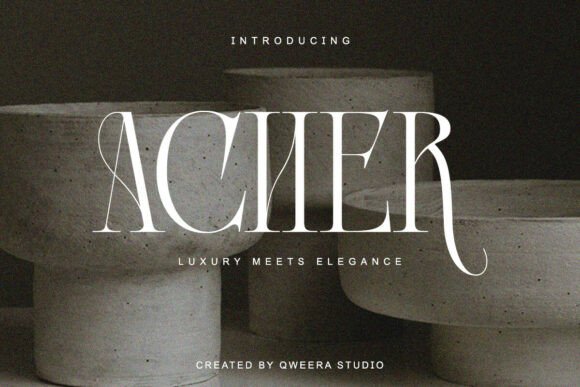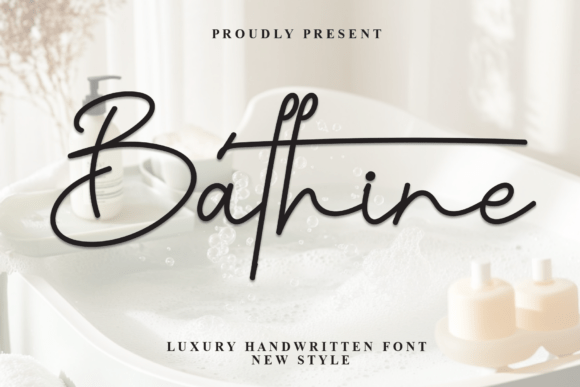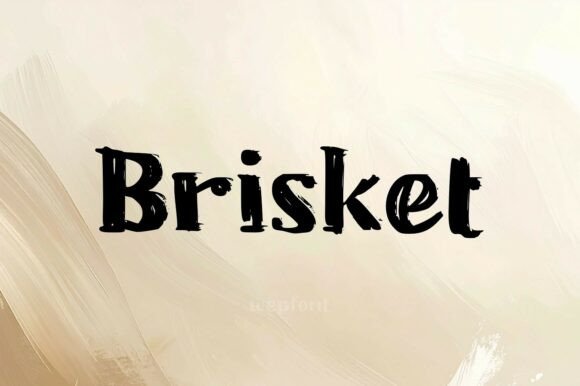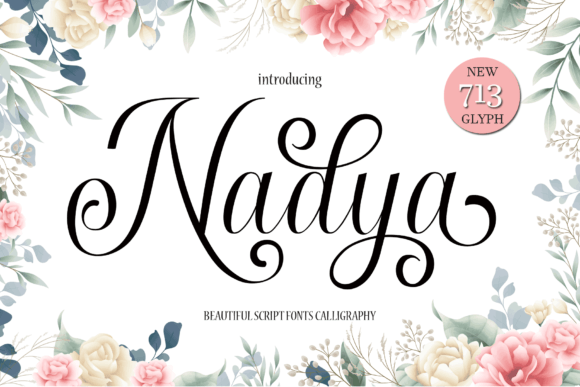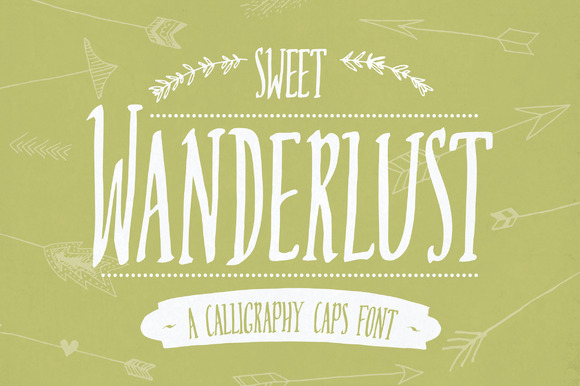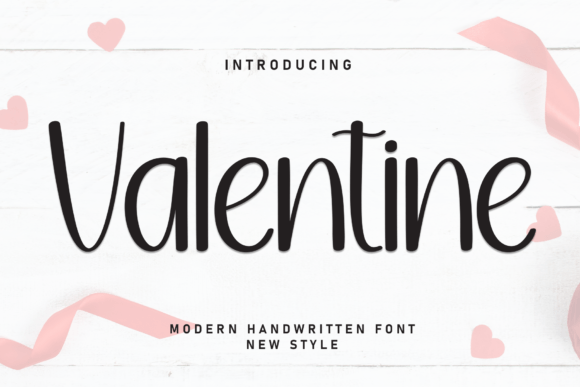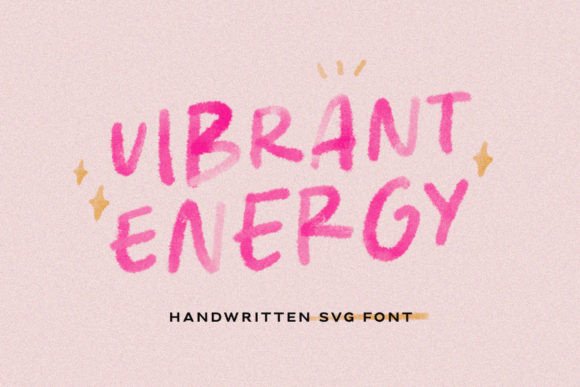
Word design
10 Creative fonts that will transform your word design
They say a brand never gets a second chance to make a first impression. But what if that first impression is built on a weak typeface? In my years as a designer, I’ve learned that Word design is the silent ambassador of your brand identity. It’s not just about readability; it’s about resonance.
Today, I want to share my passion for Creative Fonts and how stepping away from safe, default choices can inject raw personality into your work. We’ll explore how the right typography doesn’t just display a message – it amplifies it, turning simple text into a visual experience that demands attention.
Let’s dive into the fonts that will transform your next project.
Vibrant Energy Font
One font that perfectly captures this handmade, expressive spirit is Vibrant Energy. This is not your standard typing experience – it is an SVG color font that brings illustration directly into your letterforms. What I love most about Vibrant Energy Font is its organic randomness. By mixing the specially designed uppercase and lowercase variations within a single word, you instantly achieve that sought-after, natural handcrafted look. It tricks the eye into thinking each letter was placed with intention, not generated by a machine.
Beyond the letters themselves, this Word design tool includes a delightful set of matching icons that elevate your project from simple text to a complete visual story. Whether you are designing for social media quotes, greeting cards, or posters, this font adds a layer of playful depth.
Neexan Font
Sometimes your project demands something sharp, technical, and unapologetically modern. When the brief calls for that futuristic edge, Neexan Typeface is my go-to weapon of choice. Designed by Denustudios, this display font lives at the intersection of geometry and attitude – every letterform feels precision-crafted for maximum impact without sacrificing readability.
What excites me about Neexan is its versatility in word design. The streamlined shapes and techno-inspired rhythm make logos and headers snap with confidence, while the built-in alternates and ligatures give you room to craft something truly unique. Whether I am working on album art, packaging, or UI headers, this font delivers that forward-looking aesthetic effortlessly. It is sharp enough for short titles but flexible enough for entire wordmarks.
Brisket Font
Not every project wants to look serious and futuristic. Sometimes you need a font that feels like a friend – warm, unexpected, and full of character. That is exactly where Brisket Font shines. This vibrant script brings a handcrafted charm that instantly sets your work apart from the sea of predictable, sterile typefaces we see every day.
What draws me to Brisket is its delightful imperfection. It breaks the rules just enough to feel original, yet remains perfectly functional with a full set of punctuation and standard glyphs. Whether I am designing motivational wall art, a playful children’s book, or a brand identity that needs to feel approachable, Brisket delivers that magical balance of whimsy and professionalism. It works beautifully in social graphics and greeting cards too – any project that craves warmth and authenticity.
And yes, the technical side is covered. PUA encoding means all those charming alternates and decorative elements are easy to access in Photoshop and Illustrator. No frustration, just pure creative fun.
Valentine Font
Sometimes the simplest fonts carry the most emotion. Valentine Font is exactly that – a sweet, approachable handwritten typeface that feels like a personal note from a friend. In a world of polished perfection, this font reminds us why imperfection can be so beautiful.
I have tested countless script fonts over the years, and what makes Valentine stand out is its authenticity. It does not try too hard to impress; it simply feels real. The letterforms flow naturally, carrying that effortless charm you usually only get from actual handwriting. This makes it incredibly effective for projects that need to connect on a human level.
Great typography is the heartbeat of memorable design. From the playful imperfections of Sweet Wanderlust to the serene elegance of Bathine and the bold energy of Neexan, each font we explored offers a unique voice for your creative work. Whether you are crafting a wedding invitation, a brand identity, or a simple quote, remember that the right typeface doesn’t just display words – it brings them to life.